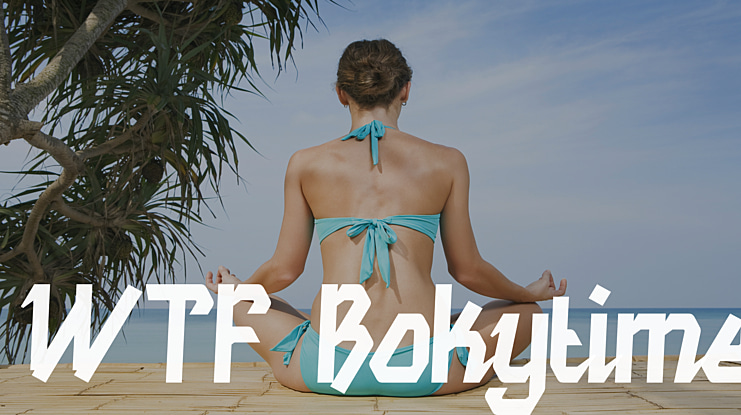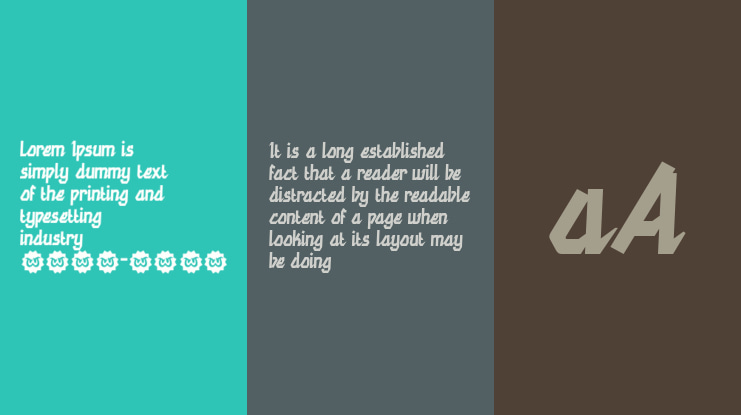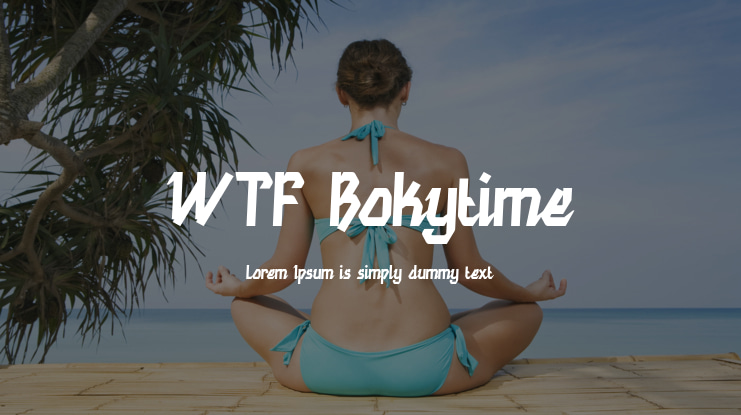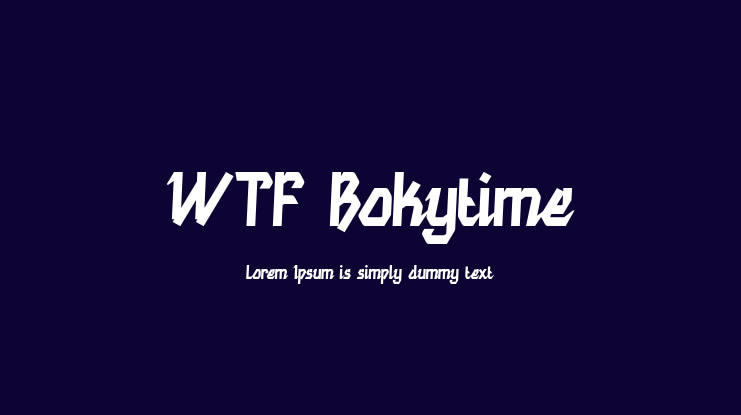
WTF Bokytime Font
Bokytime is a display script font that radiates elegance and sophistication through its graceful, timeless, minimalist yet impactful letterforms. It captures attention and brings an artistic touch to any design project. The ornate and decorative nature of display script fonts makes them perfect for creating a memorable impact in logos, headlines, invitations, and other creative applications.
Bokytime is also bold and authoritative, featuring thick, substantial letterforms. It conveys a strong presence and commands attention. Thick fonts are often used in headlines, posters, and other design projects aiming to make a bold statement. The weight of the strokes adds a feeling of strength and solidity to the typography, resulting in visual impact and improved readability.